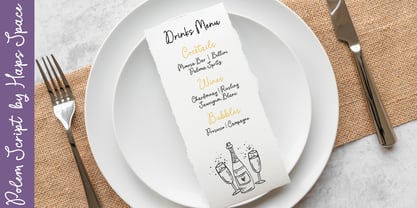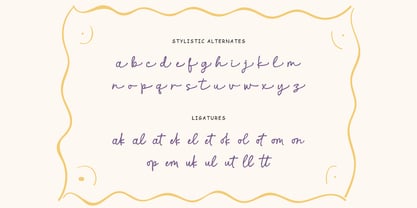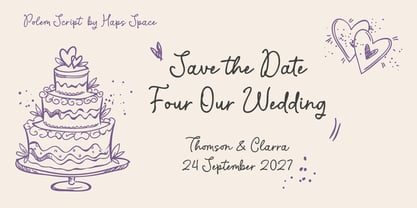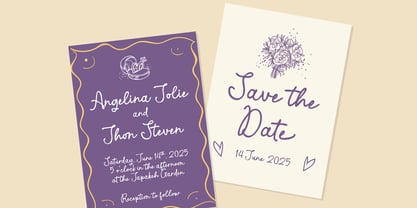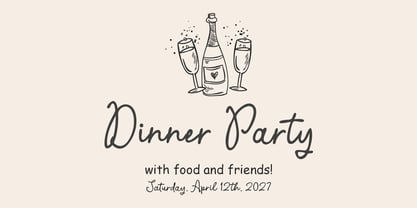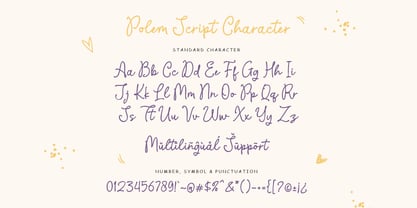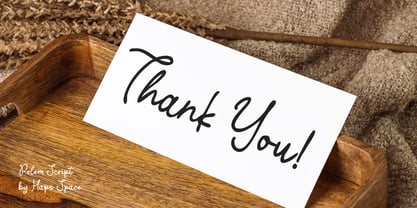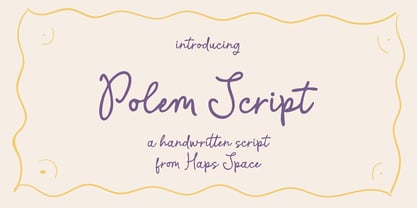
Polem Script
by Haps Space
The Polem Script Font Family was designed by Haris Purnama Putra, Egi Ahmad Mufid and published by Haps Space. Polem Script contains 1 styles. More about this family
Polem Script is a sweet, simple, and sophisticated handwritten script font. With smooth curves and natural flow, it brings a personal, elegant touch to your design work. Perfect for branding, quotes, wedding stationery, logos, and anything that needs a soft handwritten feel.
Designed with legibility and charm in mind, Polem Script fits beautifully into both modern and classic design themes.
Designers: Haris Purnama Putra, Egi Ahmad Mufid
Foundry: Haps Space